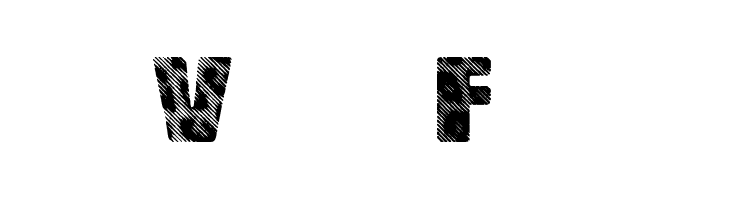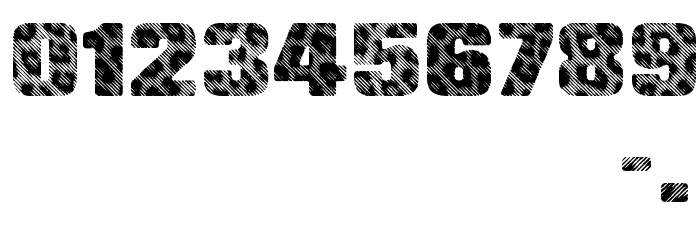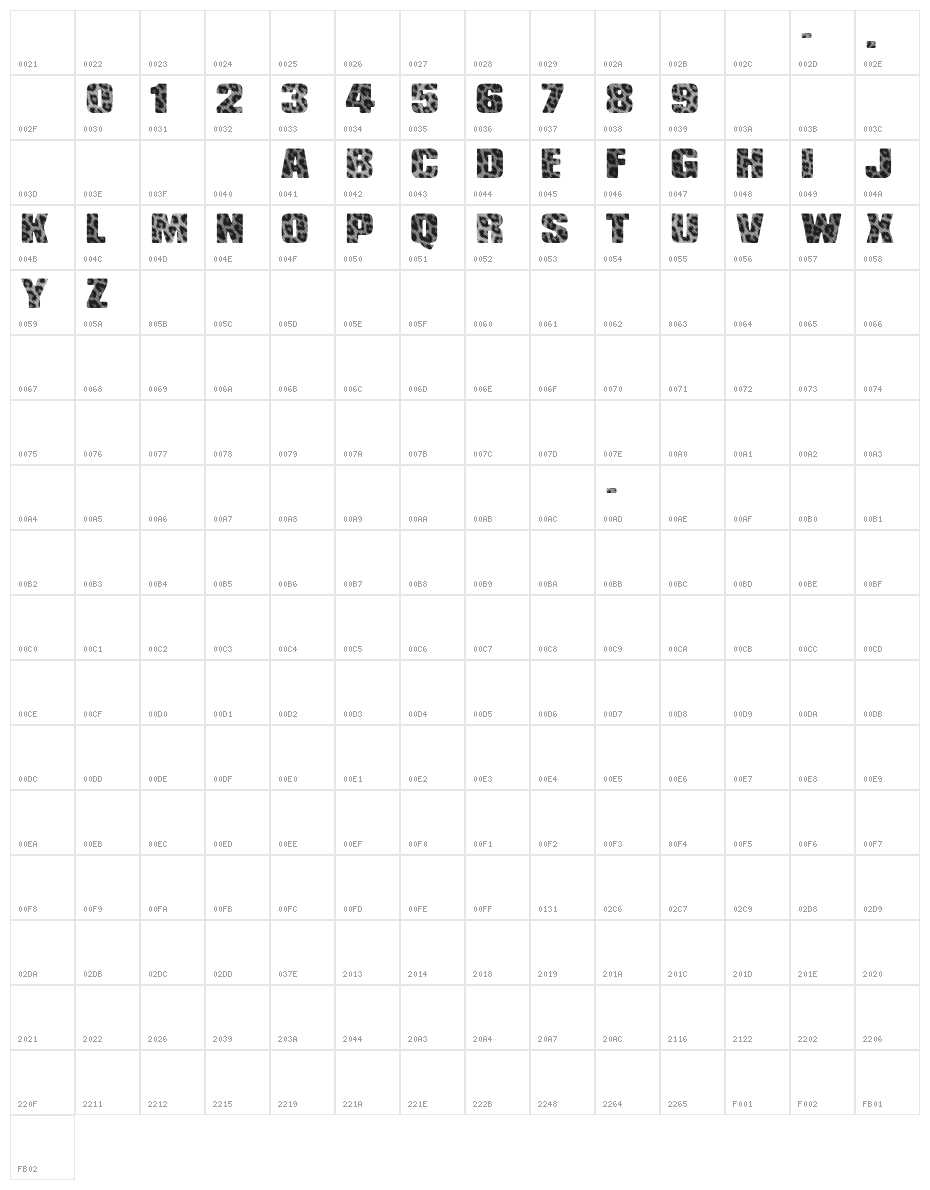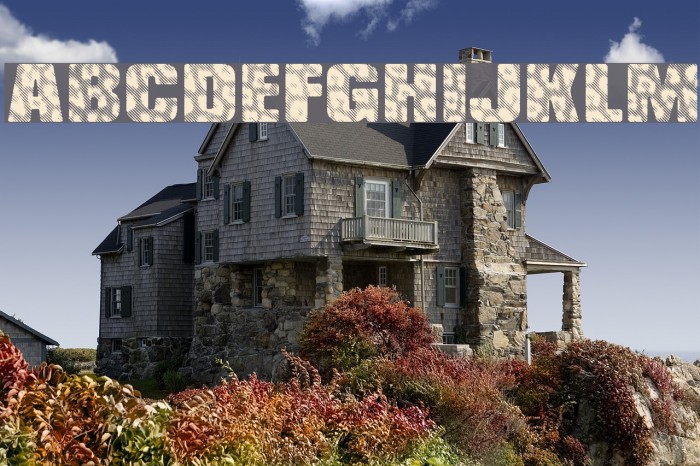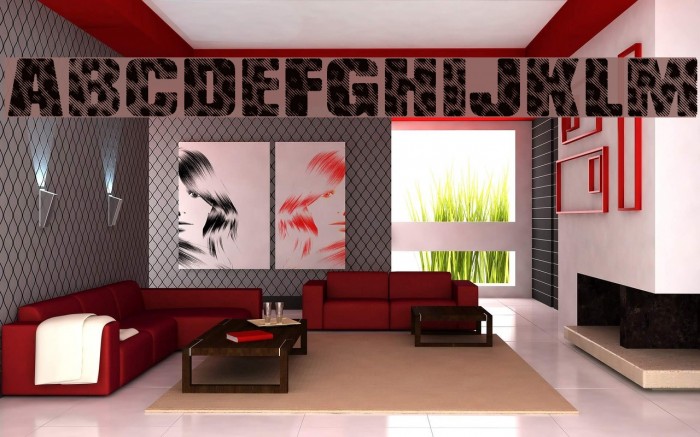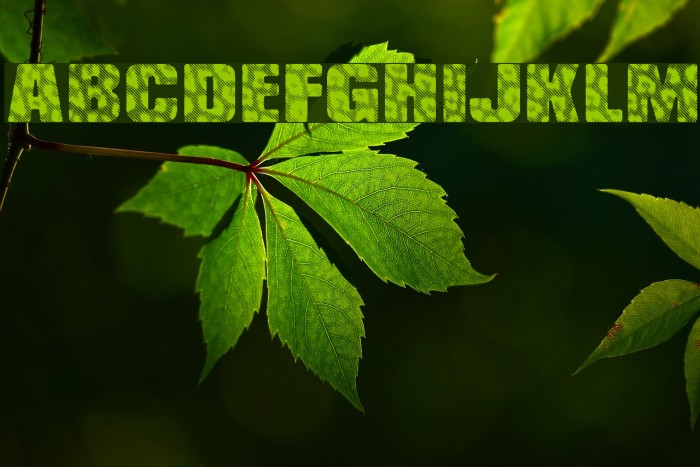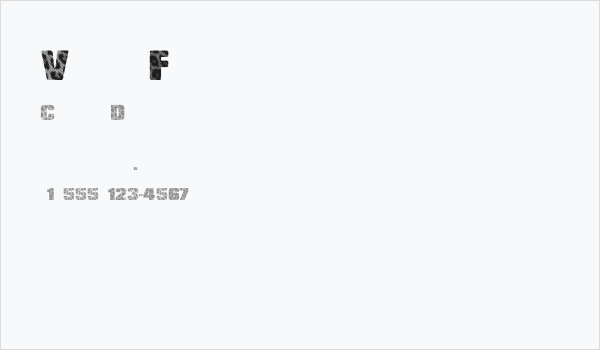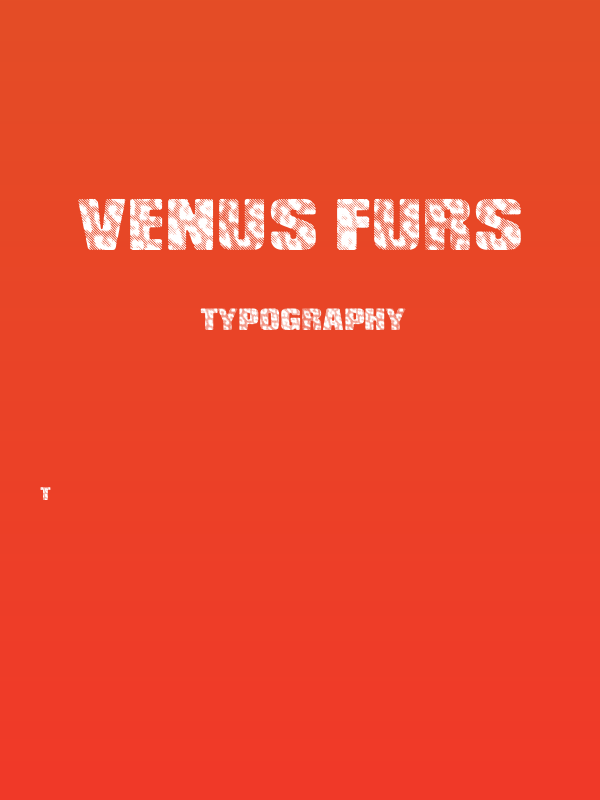
Venus Furs Font
Venus Furs Description
This font features a bold, textured design with a unique pattern that resembles fur or a similar texture. The characters are uppercase and numerals, each with a distinct, playful appearance that adds a sense of depth and dimension. The strokes are thick and consistent, providing a strong visual impact. The texture within each character creates a dynamic and eye-catching effect, making it suitable for creative and decorative purposes. The overall style is modern and artistic, ideal for projects that require a standout typeface.
| Proposed Projects | Ideal for branding, posters, album covers, and any design needing a bold, artistic touch. |